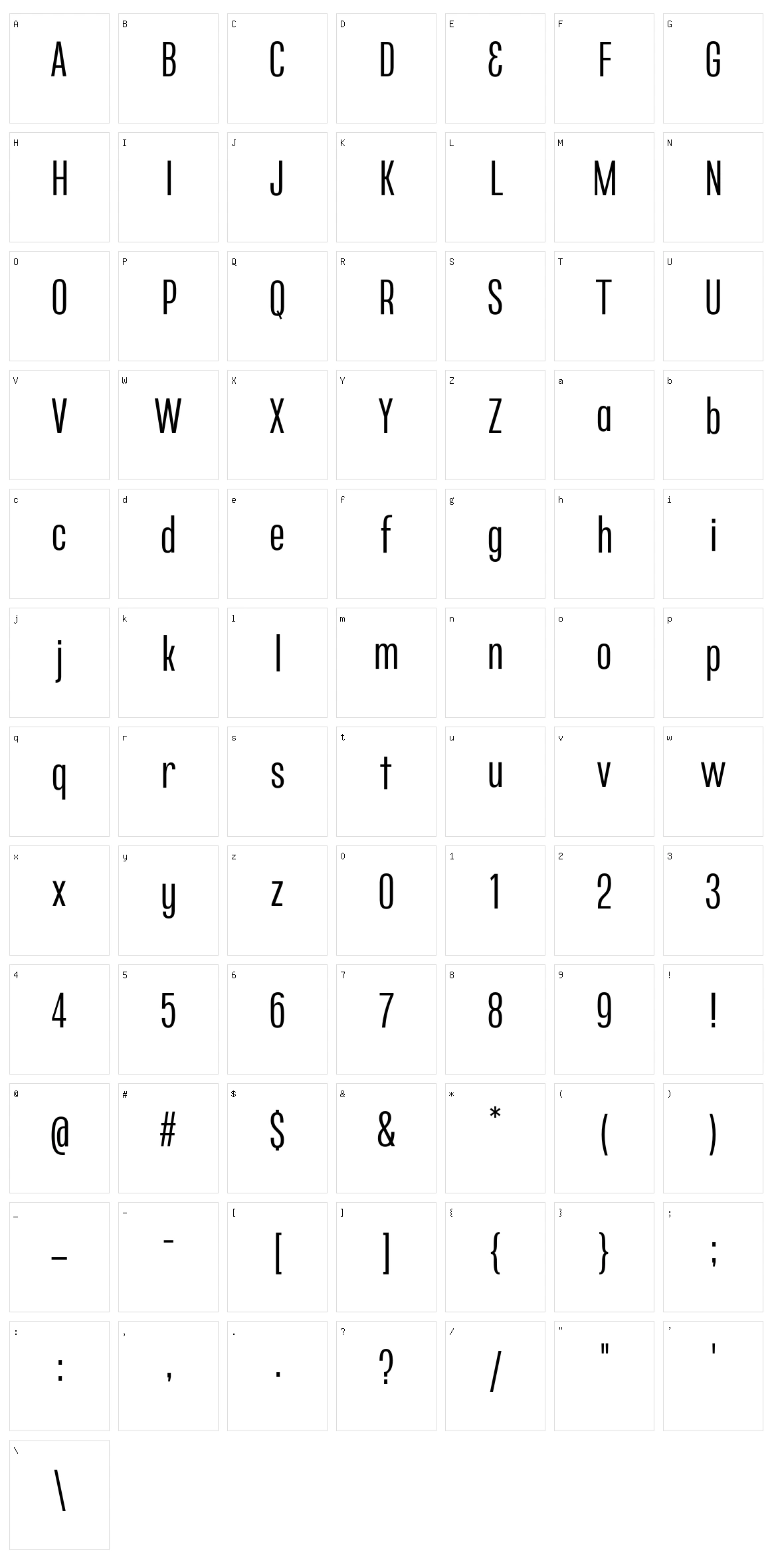
The free font Rotan is carefully designed by Aku Fadhl, showcasing a thoughtful balance of creativity and usability and falls under the Sans serif font style. When you download the ZIP file, it contains only 7.8 KB of font files, making it lightweight and quick to download. Please review the license details below to understand permitted usage and distribution rights. If license information is not available, we recommend using this font for personal projects only or contacting the author directly for commercial usage permissions.